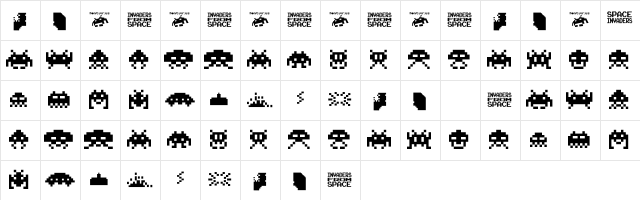
Complete invanders from space dingbats glyph index. Displaying only characters natively supported by invanders from space dingbats font.
invanders from space is a composed and adaptable typeface that performs quietly and consistently across a wide range of design contexts.